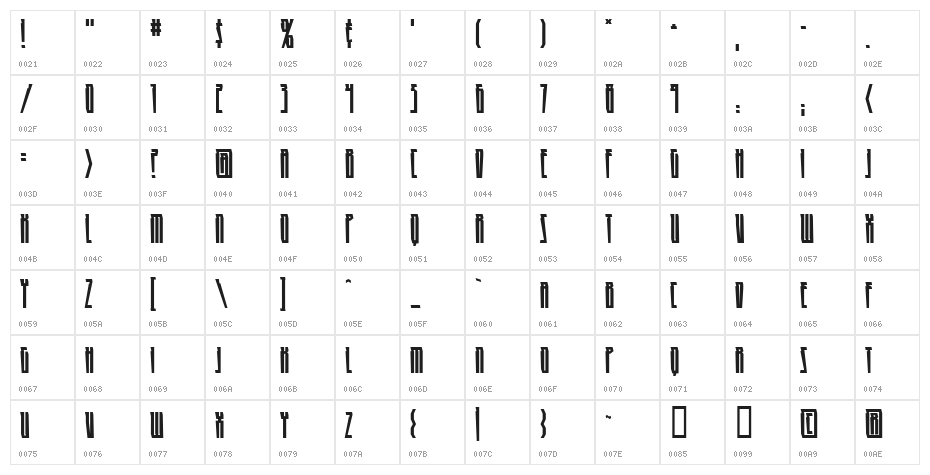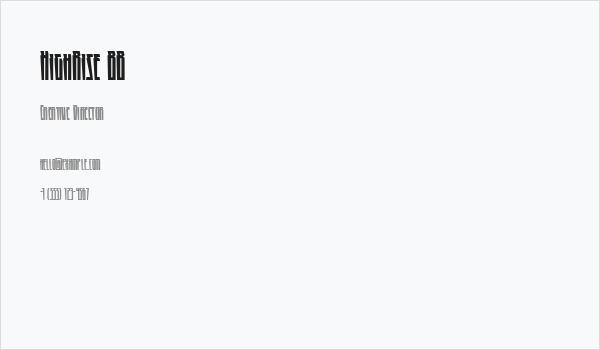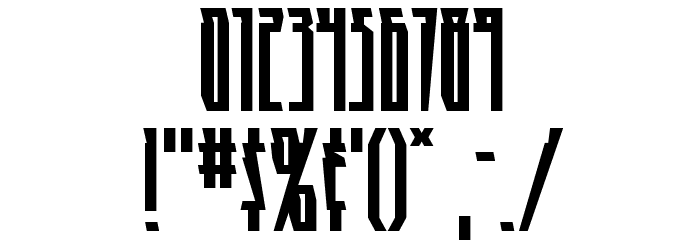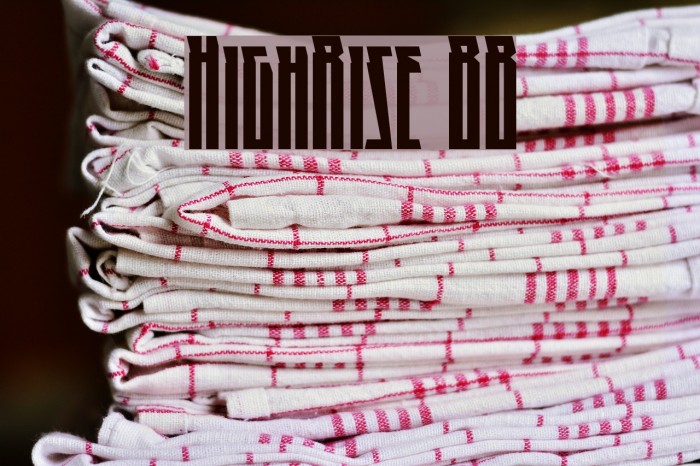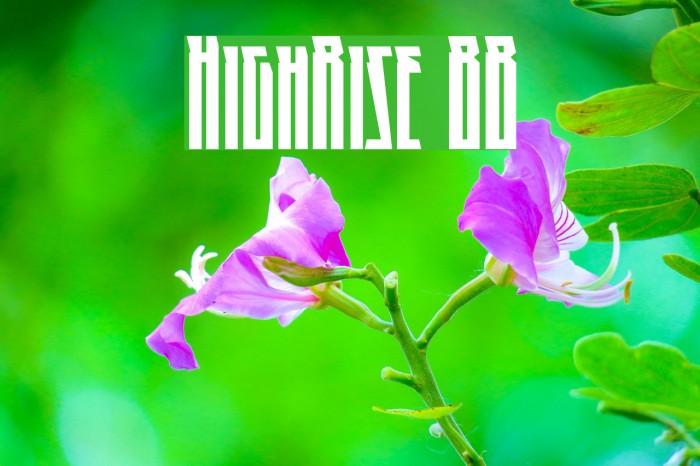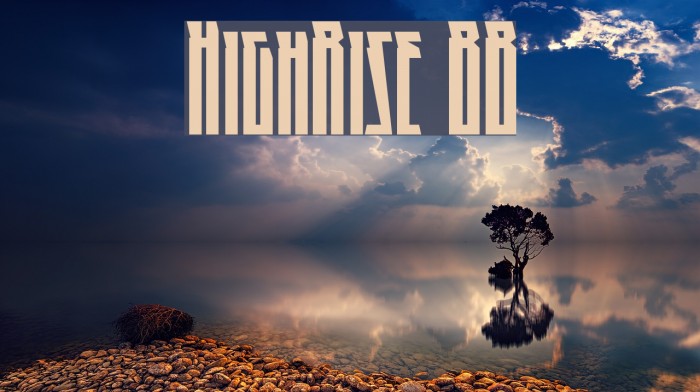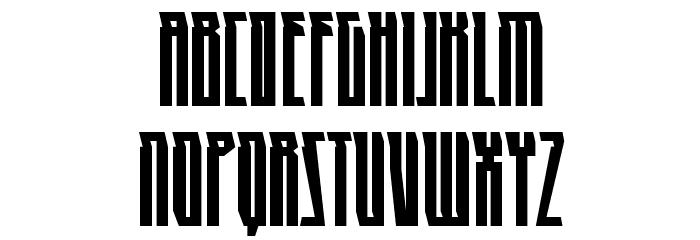
HighRise BB Font
HighRise BB Description
This font features a bold and striking design with tall, narrow characters that convey a sense of modernity and strength. The uppercase letters are particularly elongated, giving the typeface a distinctive vertical emphasis. The geometric shapes and sharp angles contribute to a futuristic and industrial aesthetic. The numbers and special characters maintain the same boldness and angularity, ensuring consistency across all glyphs. This font is ideal for making a strong visual impact, suitable for projects that require a bold statement.
| Proposed Projects | Ideal for branding, posters, headlines, and any design needing a strong, modern impact. |